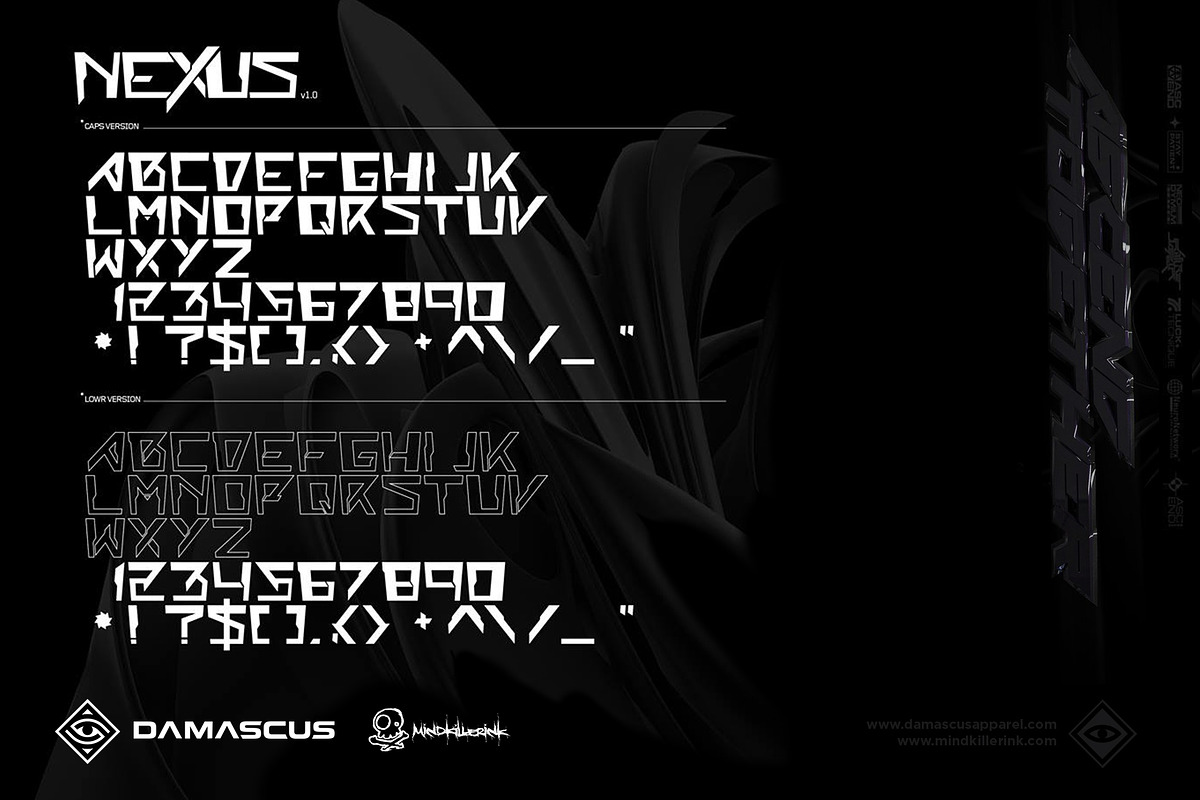
Nexus font ( DMCS x MKI )
We are honored to share with The People of Silk & Steel our first custom made font pack. Designed in collaboration with Tim Hastings of MindKillerInk
LightSpeed and NEXUS are heavily influenced by the Wipeout genre. The set is a fast moving, futuristic sleek typeface made for logos, headlines and activation designs. Both fonts were intended to be modified and customized - by extending pieces to allow flow.
- Each set comes with two different versions in upper and lower case - Along with extended characters like brackets, + and !?